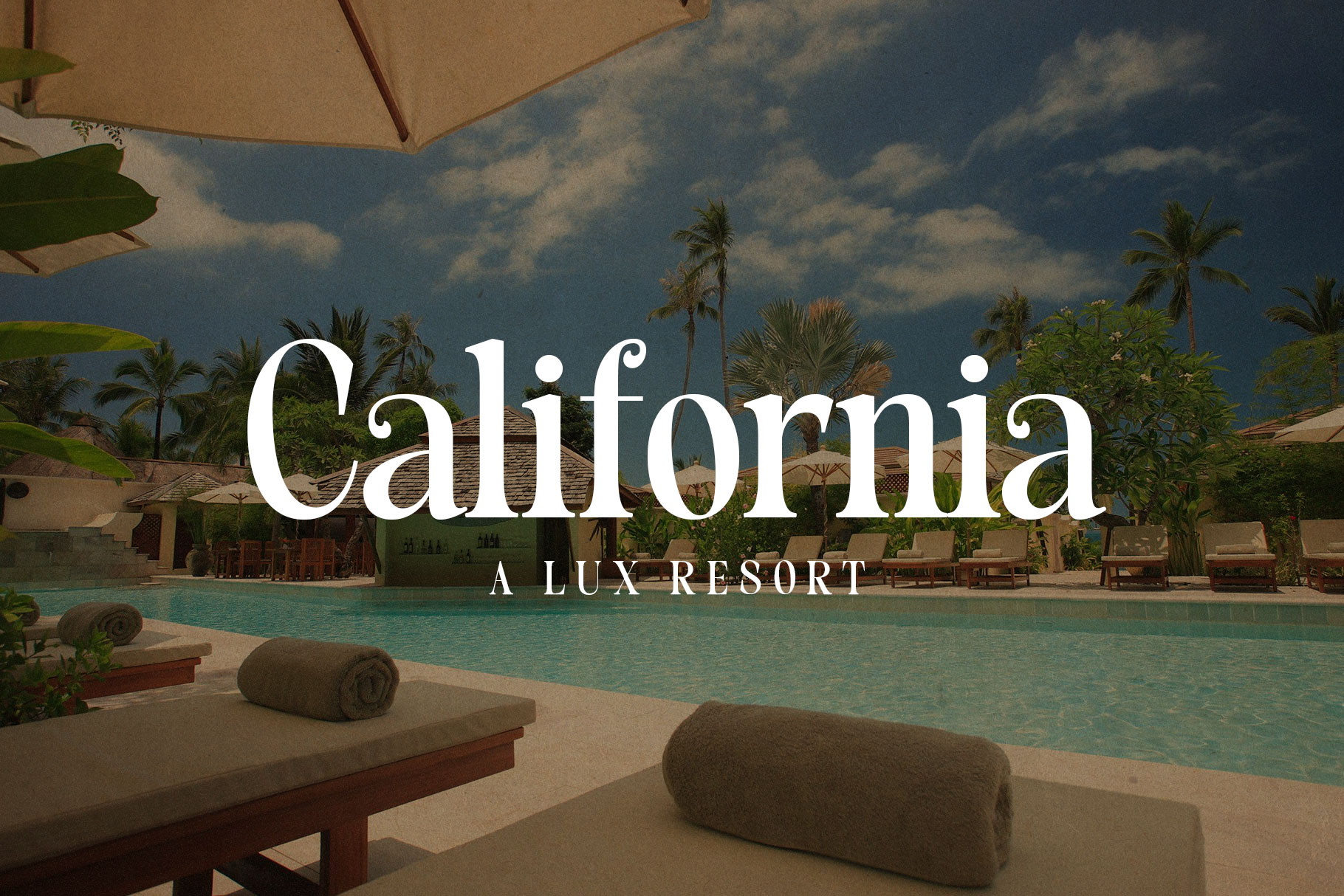
Blenisa Modern Beautiful Font
Blenisa is modern and beautiful serif font. Blenisa is a perfectly choice for any creative endeavor, creating, modern, lifestyle design such as logotype, title, cover, branding, invitations, wedding designs, display and magazine, social media posts, advertisements, printed quotes, product packaging, corporate brand, product designs, labels, photography, watermarks, special events and any other project with beautiful touch.